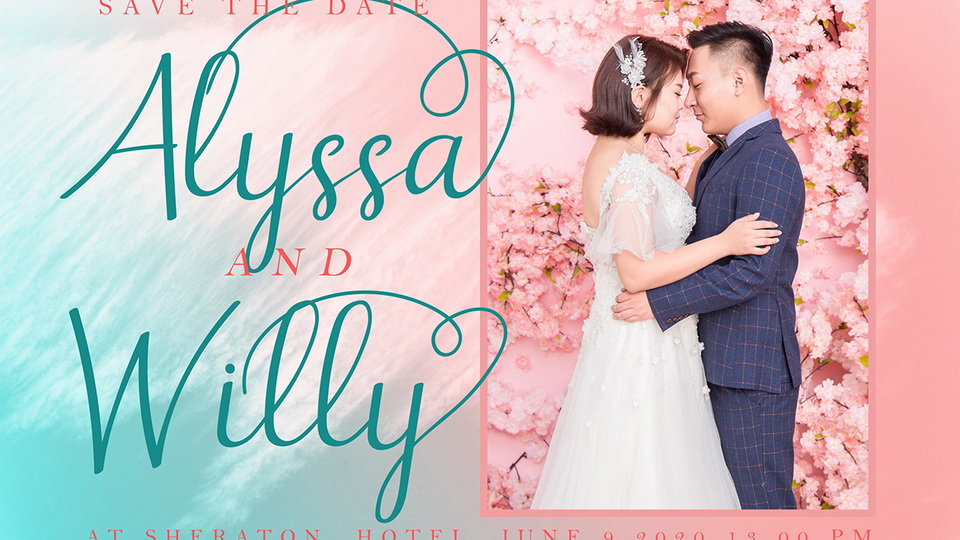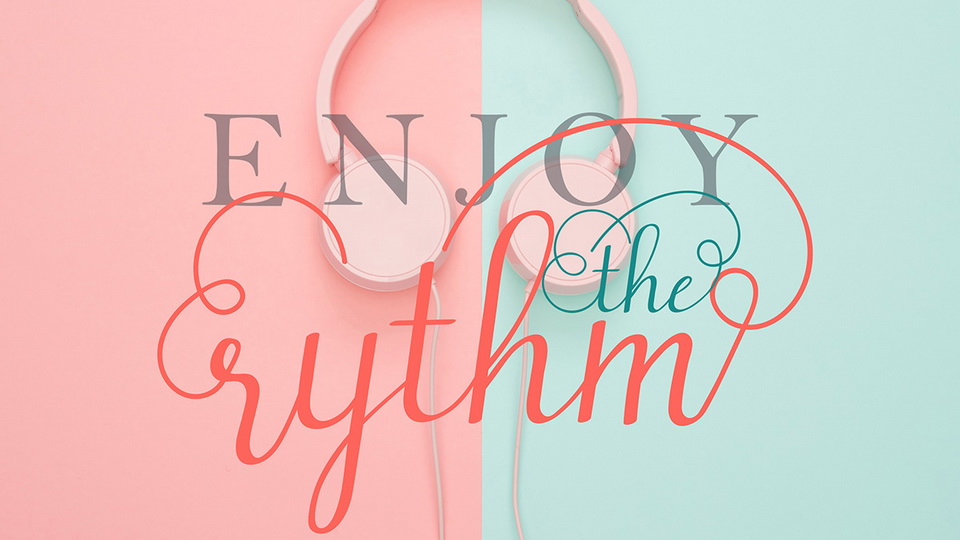
Girls Stuff is a handwritten font that represents modern and beautiful.
Girls Stuff font suits for any kind of your project, such as advertisements, branding, graphic design, quotes, wedding design, logo for online or offline business, photography, and others. Make your business more beautiful!